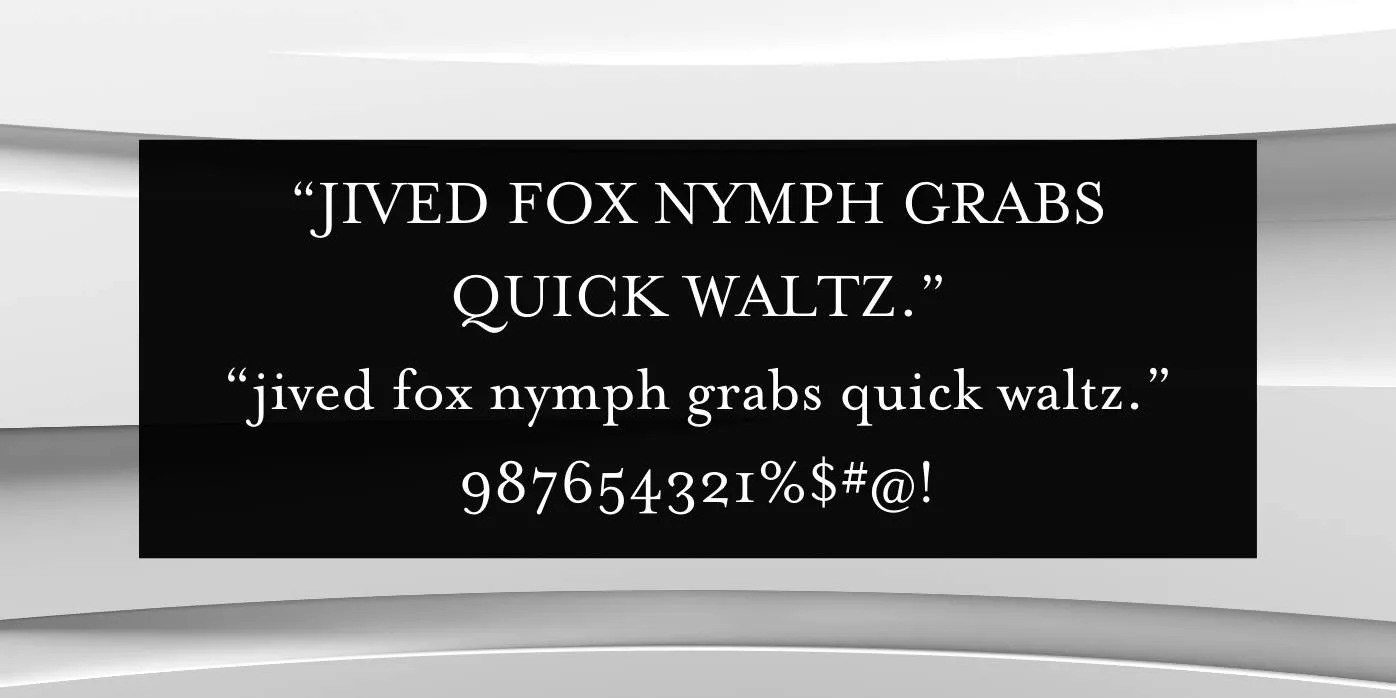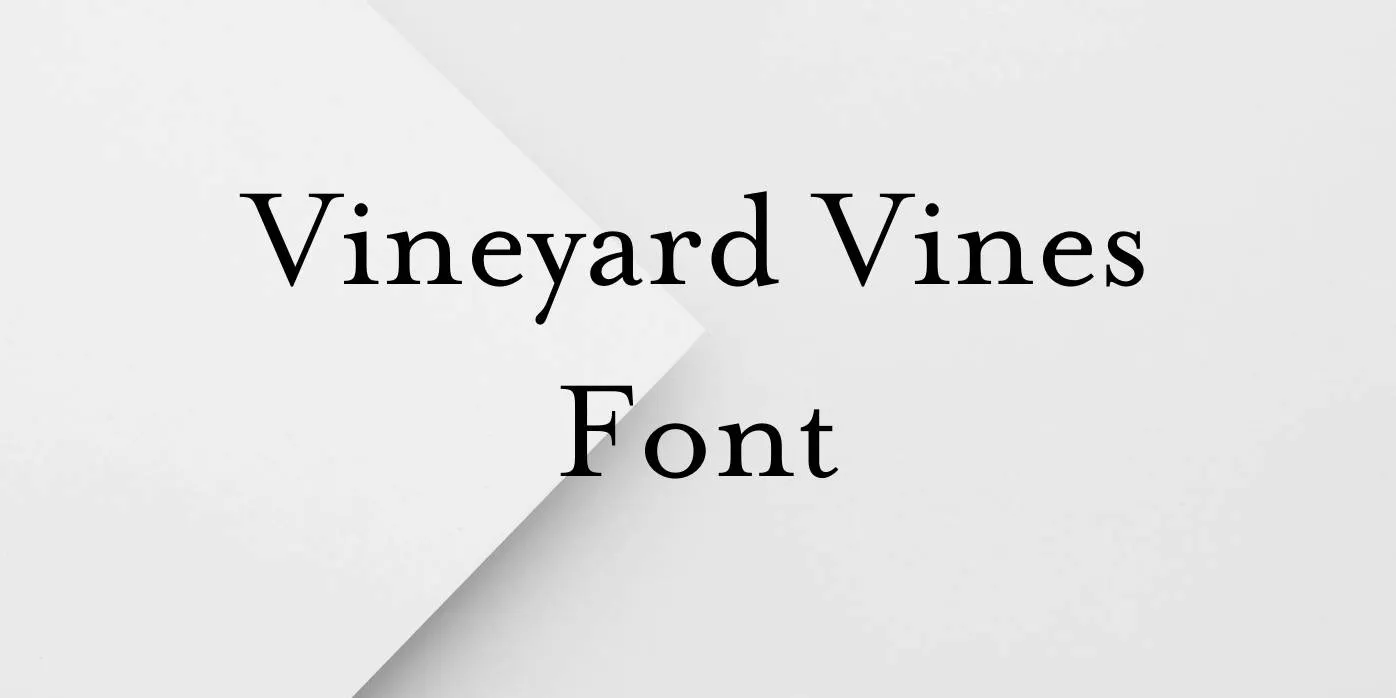
Vineyard Vines Font
Vineyard Vines is an iconic American brand, best known for its classic preppy clothing and accessories. The logo is one of the most recognizable in the fashion world, and the company’s signature whale logo has become a symbol of preppy style. This is a very popular serif font and it is used by many people. This font was created by M√•ns Greb√§ck in 2013.
The Font has been downloaded over 100,000 times. The font is based on the classic Didot typeface, which was popular in the late 18th and early 19th centuries. The Didot family of typefaces is characterized by its thin, elegant strokes and high contrast between thick and thin strokes. Vineyard Vines has adapted the Didot typeface to create a logo that is both modern and timeless.